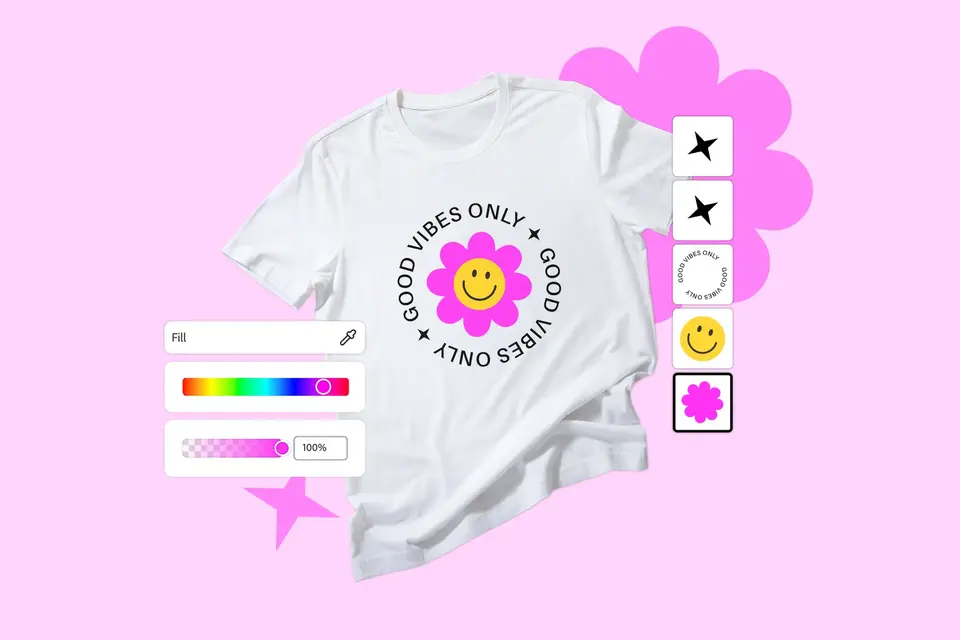
Typography t-shirt design: What are the best fonts?
Explore ideas for typography t-shirt designs, including how to use and experiment with different fonts. Whether you’re a business, band or online seller, see how Adobe Express can help you design and print your own t-shirts.
Making your own t-shirts is exciting – from deciding on the material to creating the perfect design. Choosing the typography style you want to use for your t-shirts is a big part of this. Depending on what you’re making them for, typographic t-shirt designs can be a great option – whether you need a branded tee for a uniform, a collection of graphic t-shirts for your shop or are making a gift for a friend.
In this guide, we’ll explore different typography and font ideas for t-shirts, so you can get started creating the perfect design.
1. Minimalist typography t-shirt design.
Less is more in the case of minimalist typography. These t-shirt designs focus on simplicity and clarity. While you won’t be using any fancy adornments or extra design assets, minimalism harnesses this lack of decoration to create a clean but effective typeface.
Think about:
• Using simple and clear fonts
• Choosing a limited colour palette
• Making use of negative space
• Emphasising readability
• Using different font sizes and weights
What is the best font for a minimalist t-shirt design?
Sans-serif fonts are often best when designing minimalist t-shirts. These fonts are clean and uncluttered, and reflect the modern look of minimalist designs. Some sans-serif font ideas for your t-shirts could include:
• Akzidenz-Grotesk. Bold and simple, experiment with this font in different weights to create a visual hierarchy on your t-shirts
• Agency FB. Using sleek lines and a unique shape, this font looks almost futuristic
• Avant Garde Gothic. A classic typeface re-imagined. Italics gives Avant Garde an extra edge
2. Retro t-shirt fonts.
Time for a throwback. You can have some real fun with retro fonts for t-shirts, partnering them with colourful designs and patterns. Think autumnal oranges and reds, groovy sweeping typefaces, and trippy overlays.
You could:
• Harness the power of contrasting colours
• Emphasise the use of font size and shape
• Consider specific eras that could inspire your designs
• Be subtle by adding a retro typography touch to an otherwise basic design
• Factor nostalgic fonts and designs into your ideas.
What is the best font for a retro t-shirt design?
Unique fonts with a vintage or nostalgic feel are best for retro t-shirt designs. Think versatile, flowing fonts that are curvy and playful. The 60s and 70s were all about experimenting with fashion, so why not continue the tradition? Some ideas could be:
• Pilar. This retro font has a theatrical and cinematic feel and would fit right in on the door of Studio 54.
• Juicy. Striking and jaunty, this versatile font has a throwback ‘print ad’ feel that would look great on a colourful t-shirt design.
• Dreamboat. A hit of americana, Dreamboat is a curvy, playful font that creates the perfect nostalgic vibe.
3. Handwritten fonts for quote t-shirts.
There’s nothing better than incorporating one of your favourite quotes into your wardrobe. Whether you want to carry an inspiring quote on your chest or are choosing a famous movie line to immortalise in your next collection, handwritten typography makes these t-shirt designs feel a little more personal.
You could consider:
• Exploring a range of handwriting styles
• Partnering the fonts with a unique, flowing design
• Choosing a font that mimics a specific person’s writing (or what you think it would look like)
• Using calligraphy, hand-written and brush fonts
• Keeping things simple so cursive captions aren’t overwhelmed
What is the best font for a quote t-shirt design?
Cursive fonts, with their flowing lines and swooping curves are a good choice for a handwritten quote t-shirt design. Of course, your typography choice will depend on the quote you’re using, so you may even want to go for something a little harsher or softer. Some options include:
• Grosvenor. A classic calligraphy font, Grosvenor is quite a relaxed option – perfect if you’re going for a more traditional t-shirt.
• Despina. Another slightly vintage option, Despina is great if you’re looking for something a little more unique. The perfect match for band and brand merchandise.